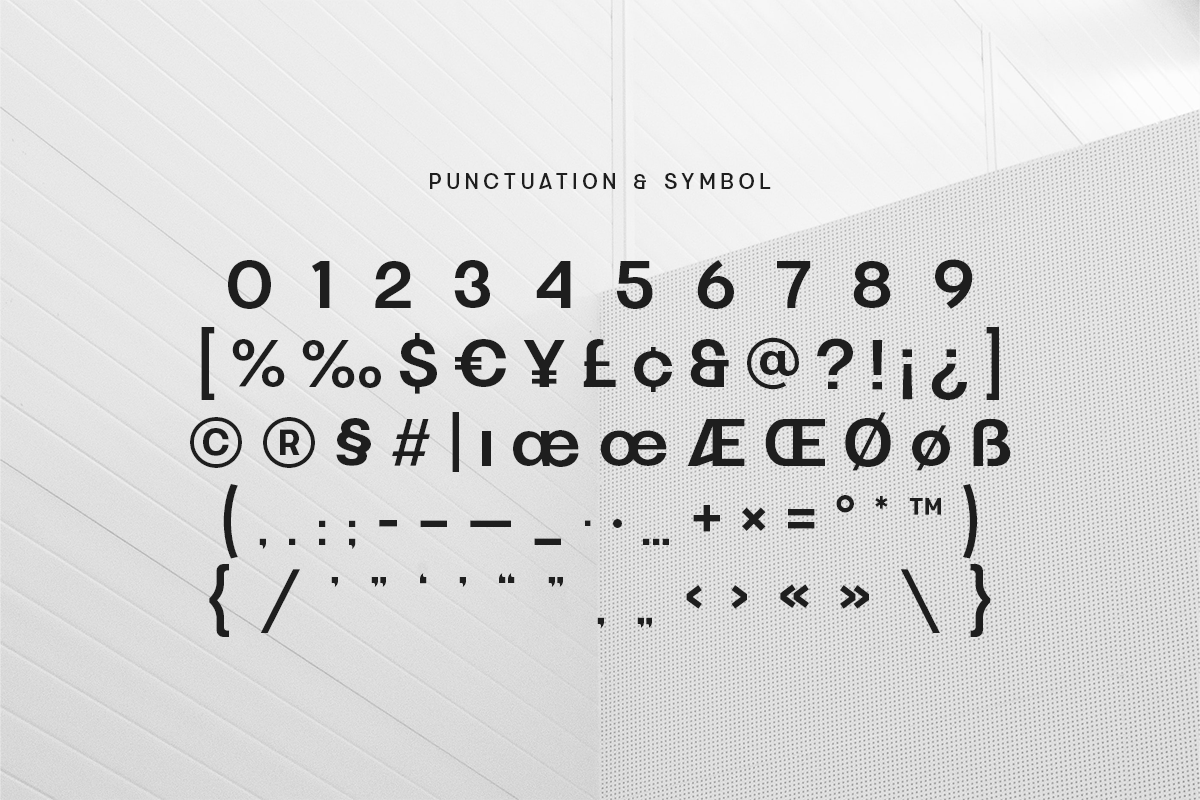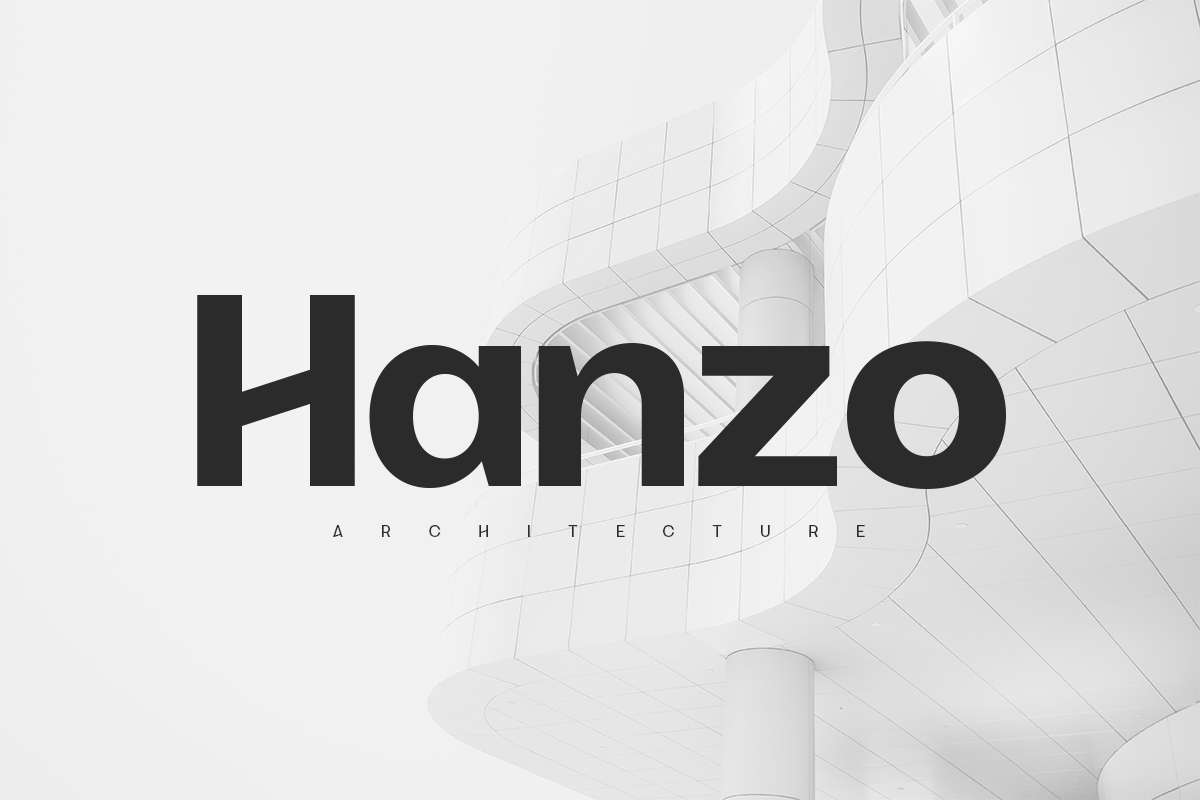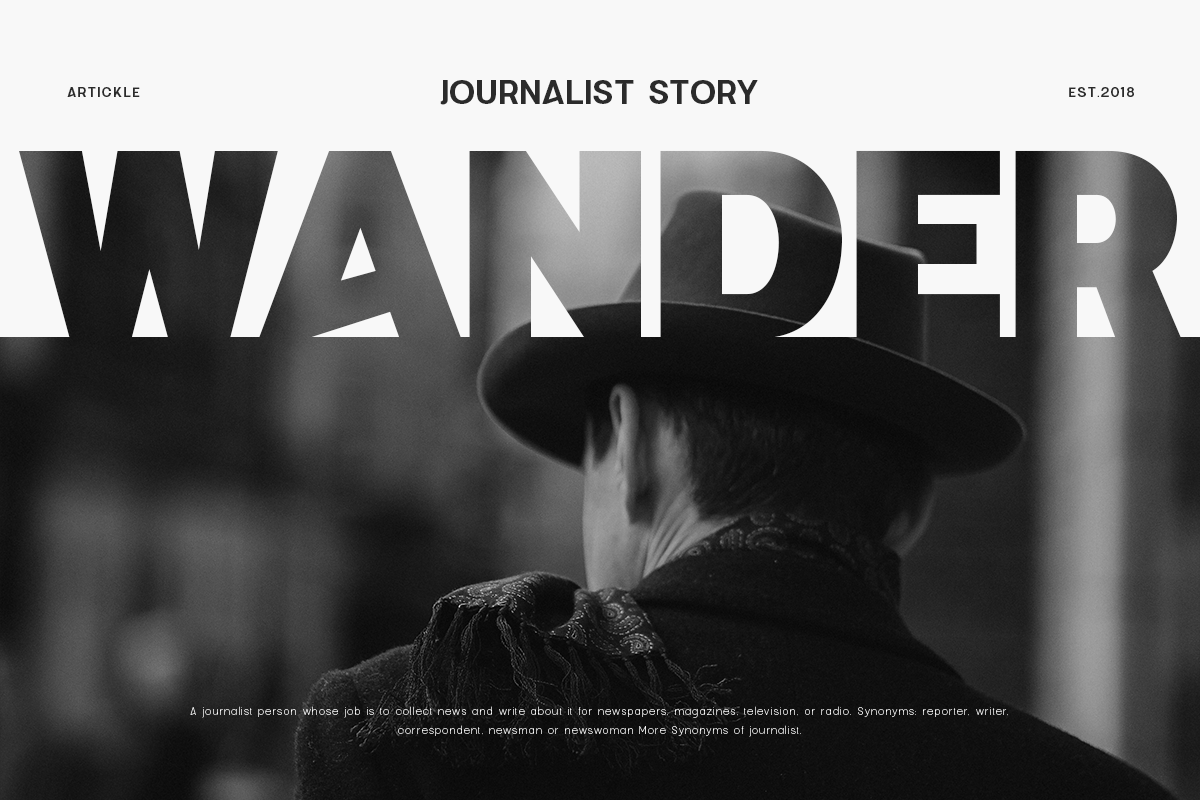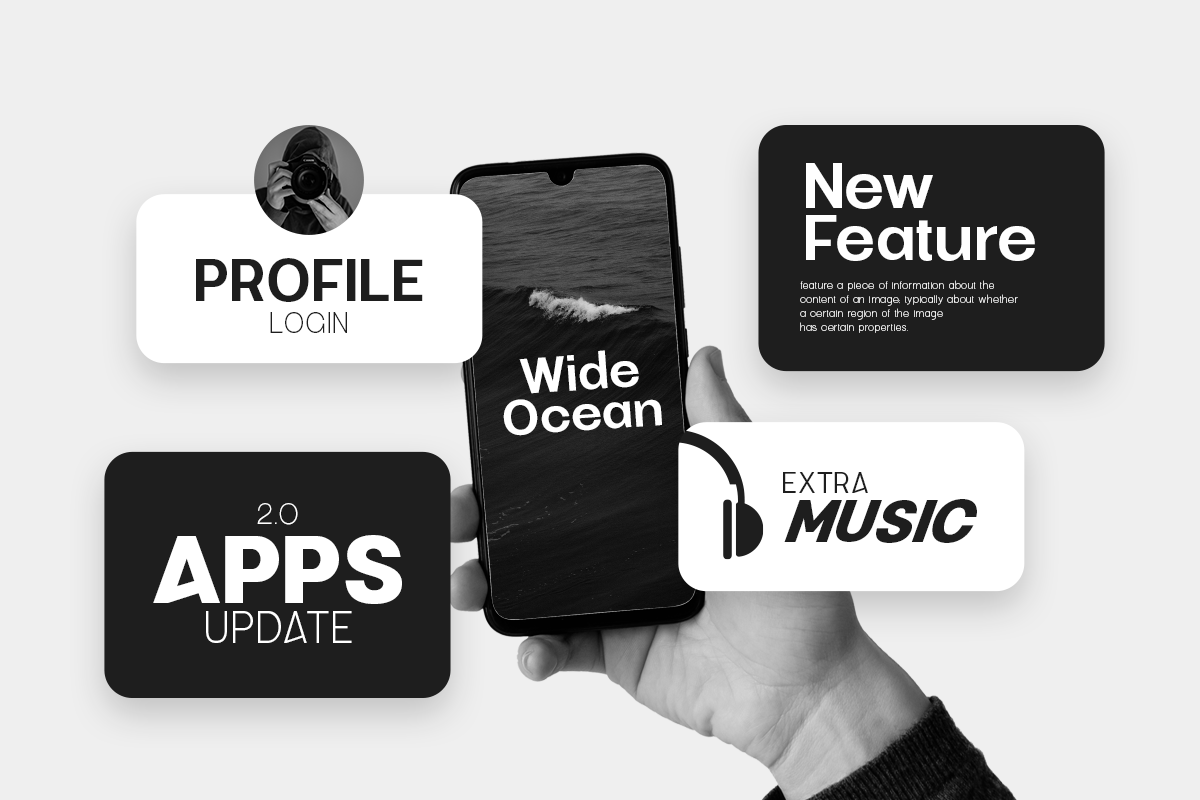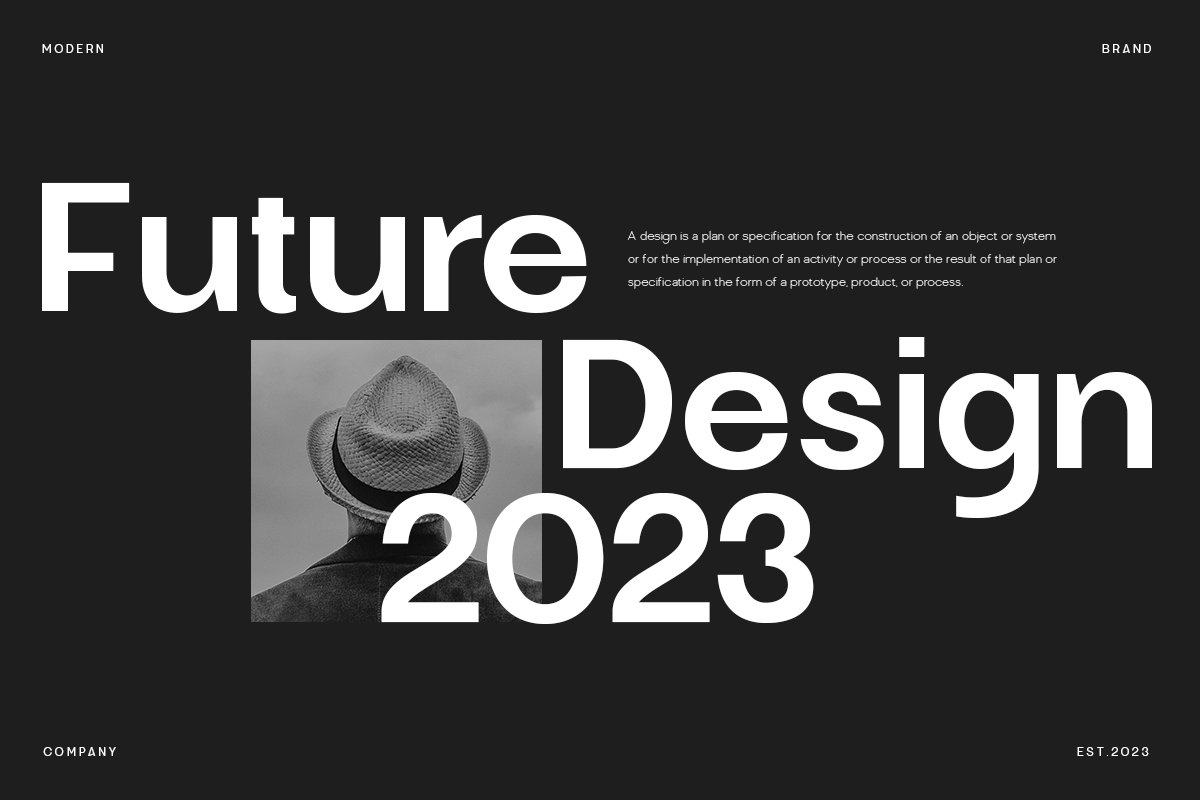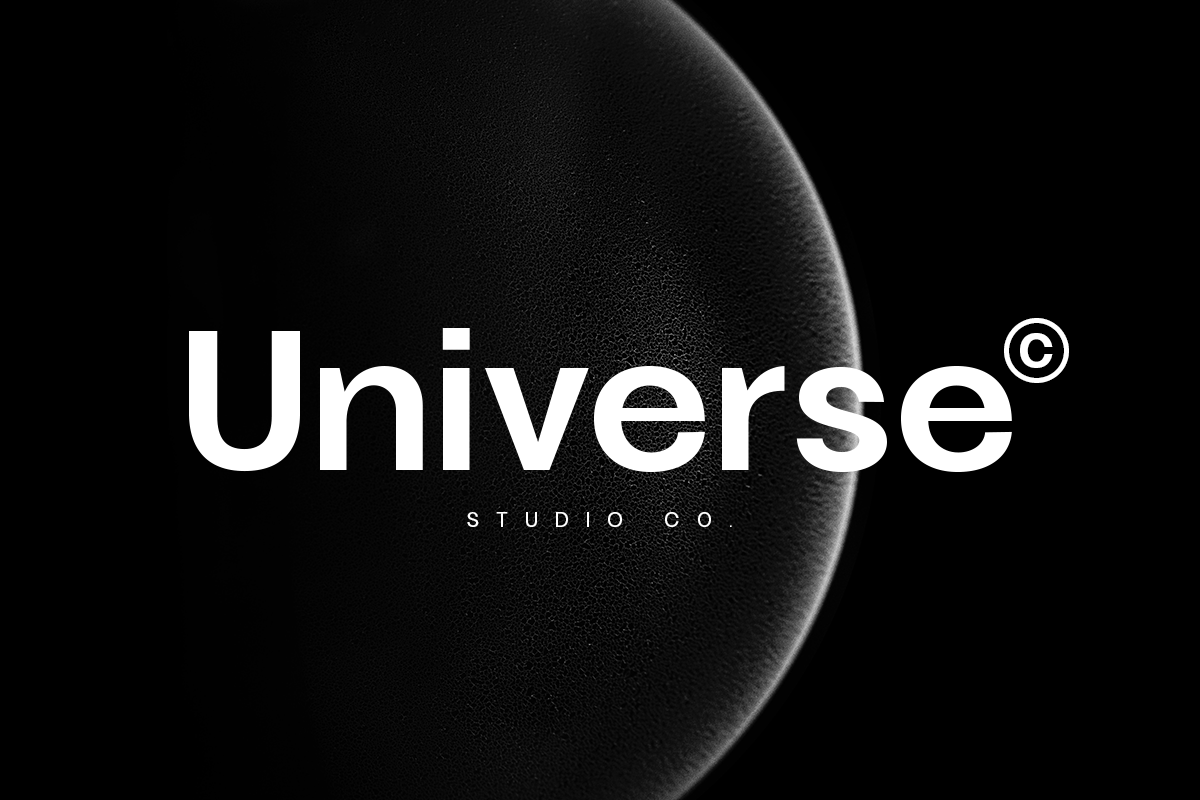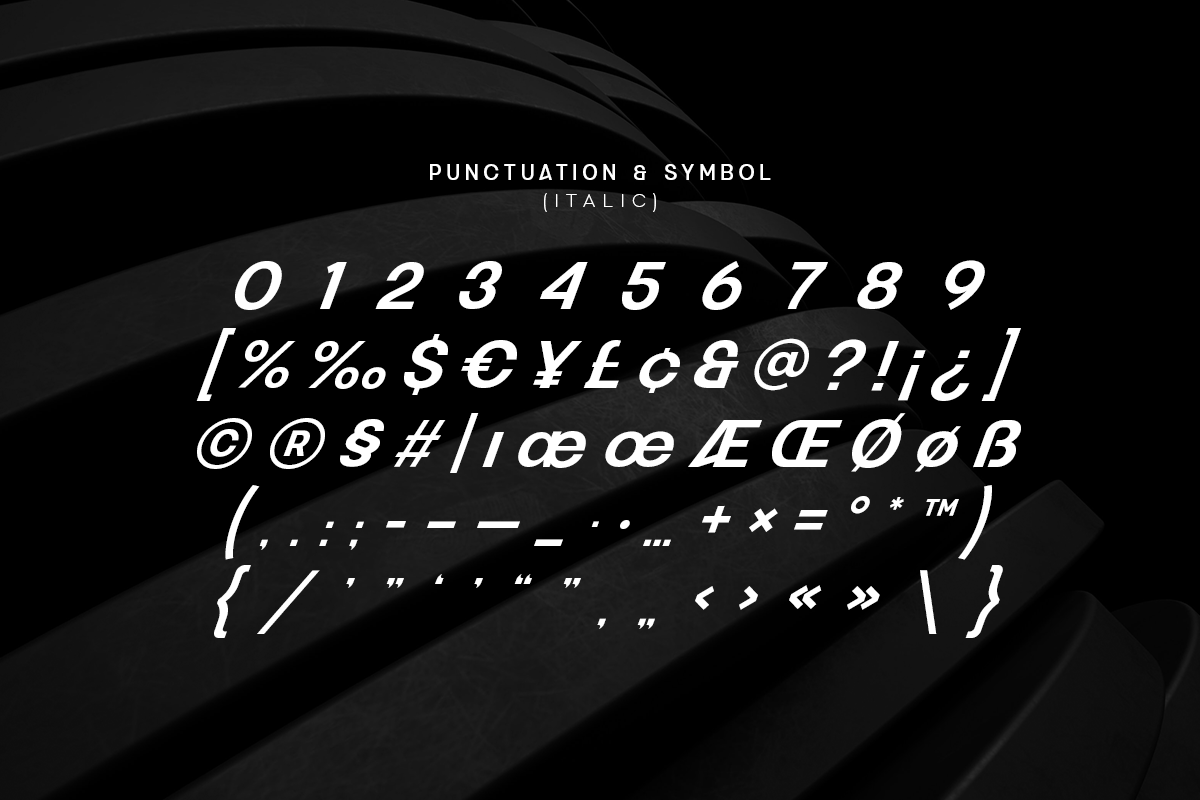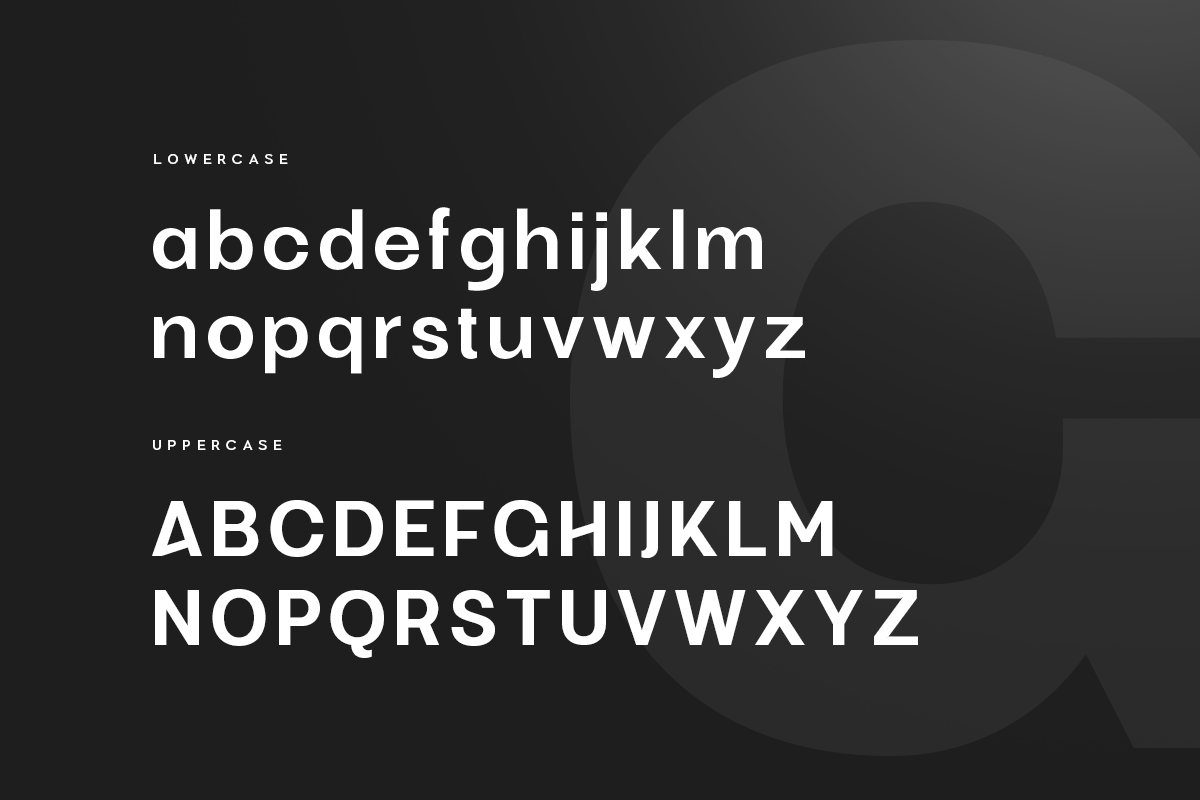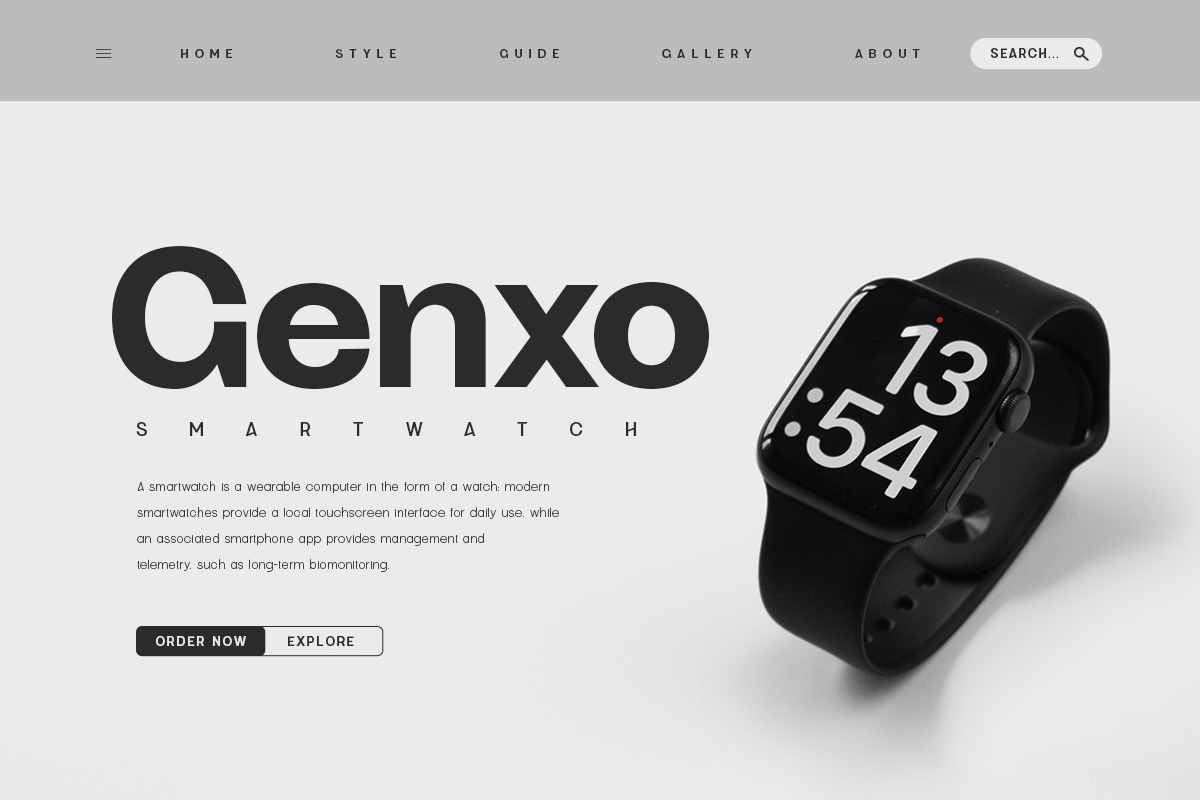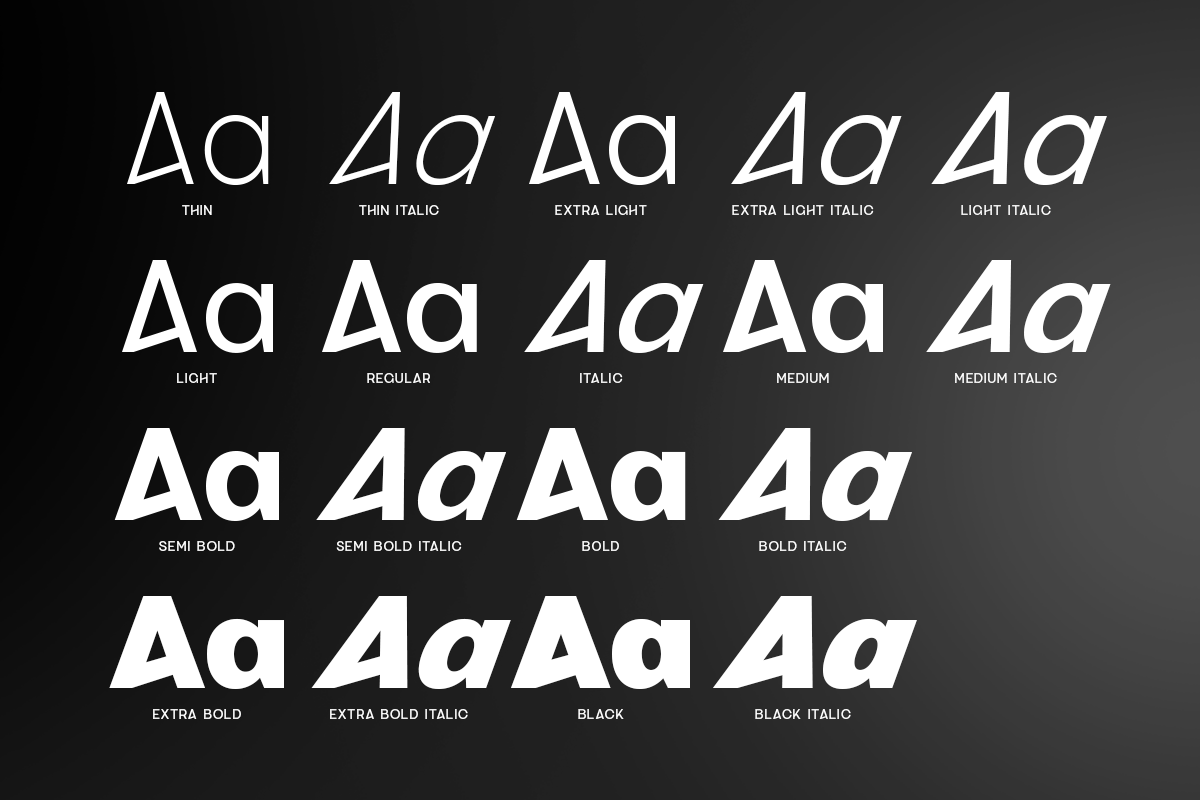
Grainy – Modern Display Sans Serif
Grainy is a Modern Display Sans Serif that created special for Branding, Title and more stand out typography needs, with extra alternative styles that make your design more memorable. It’s so perfect to add your style and headline overview for business, technology, actions, and minimalist theme. And specially for this font, we crafted for minimalist style and modern feels so enjoy to create any project that will show your main idea out.